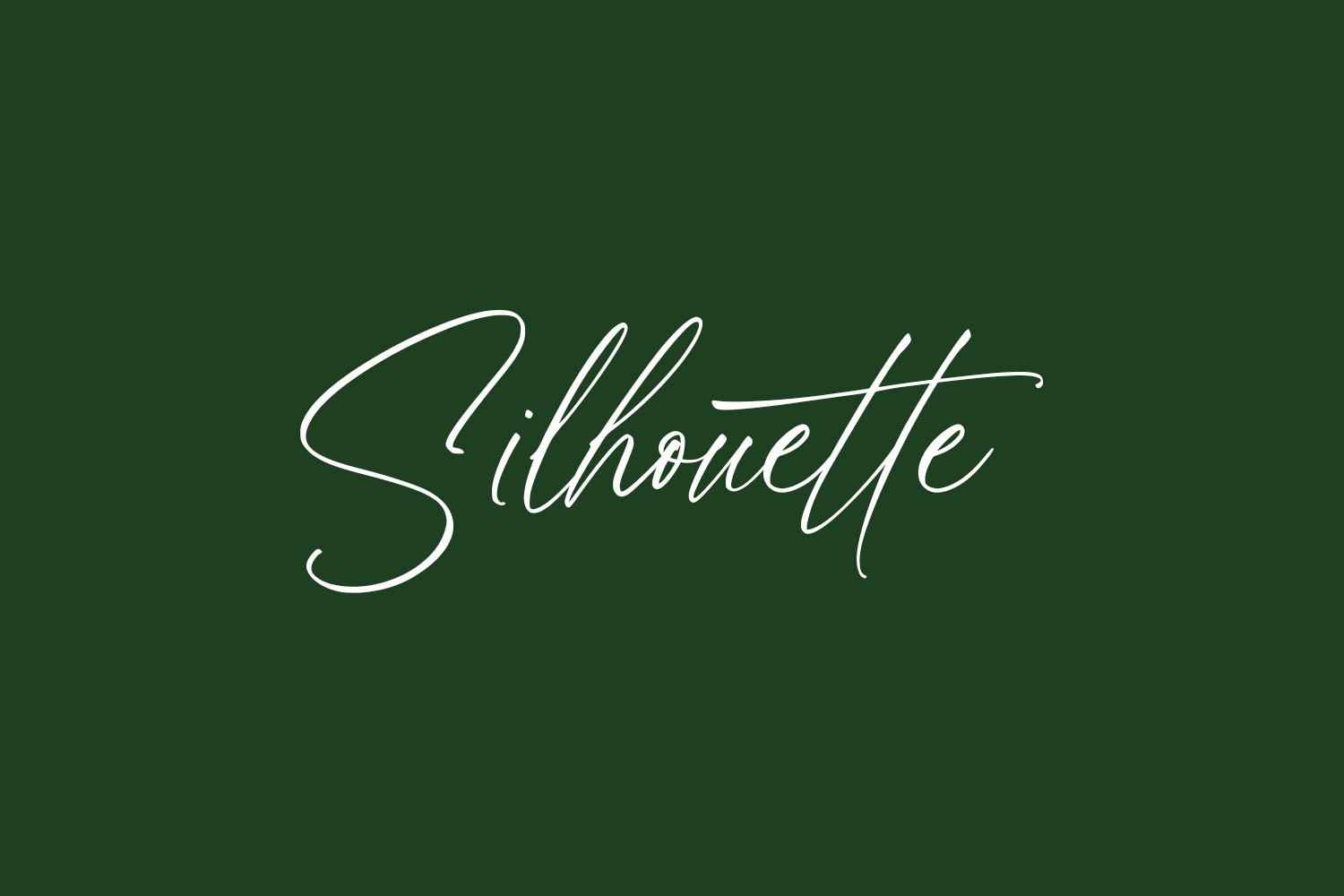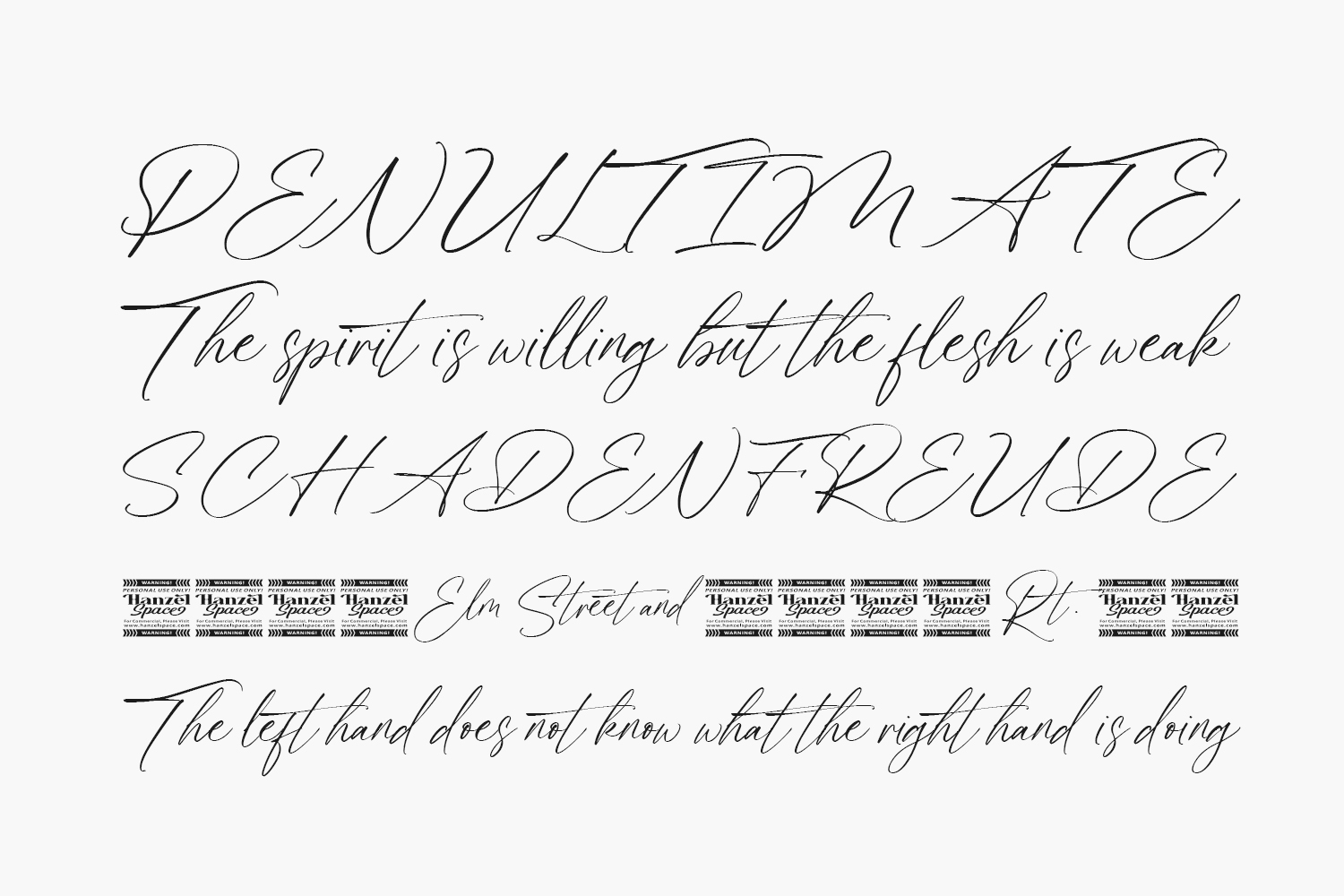
Silhouette Free Font is a superb handwritten font that will make your work stand out through its elegant and curvy lines. It is perfect for product packaging, branding project, magazine covers, social media, wedding, or just used to express words above the background. Silhouette Free Font is a demo snd free for personal use only. Please purchase the full version for commercial use.